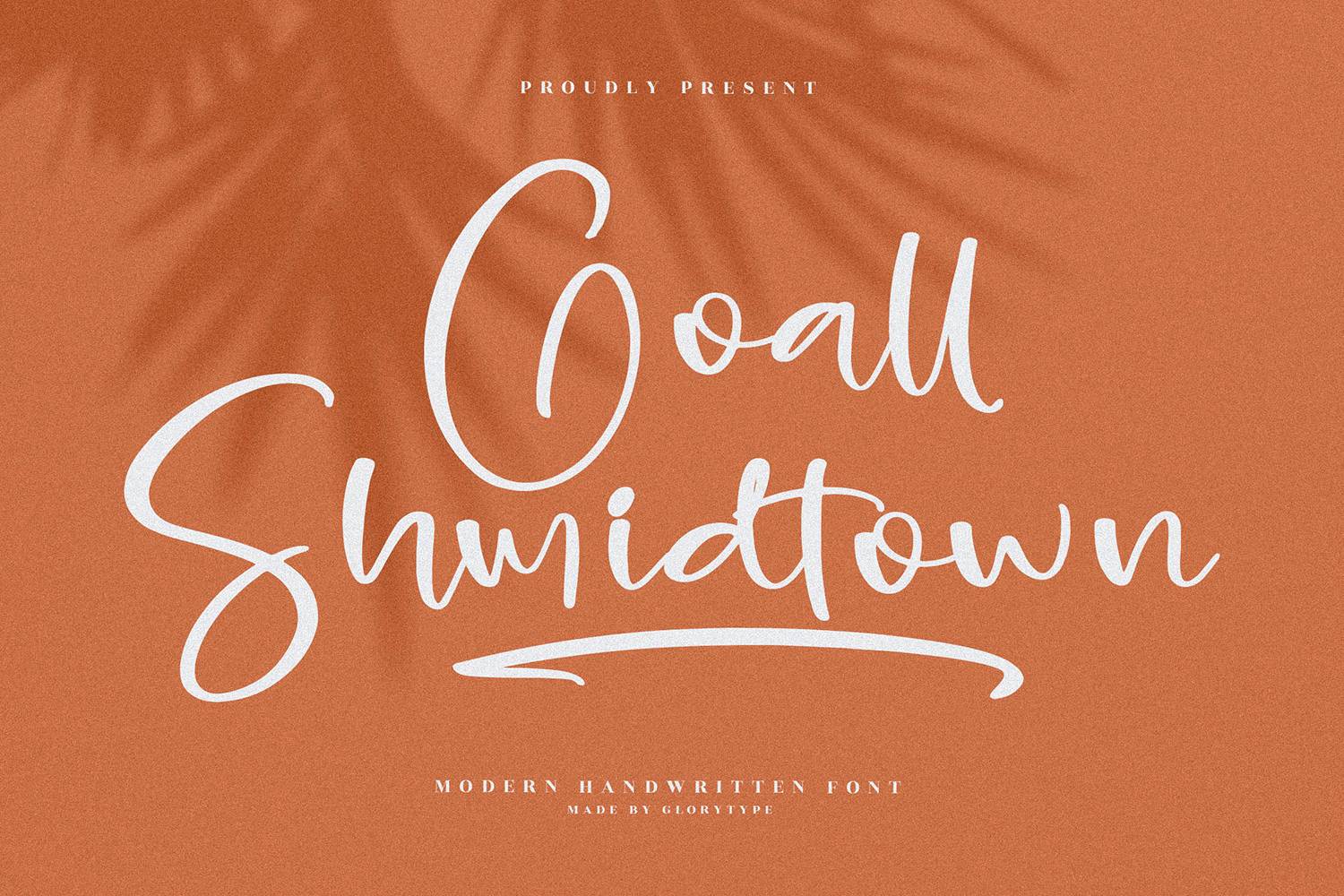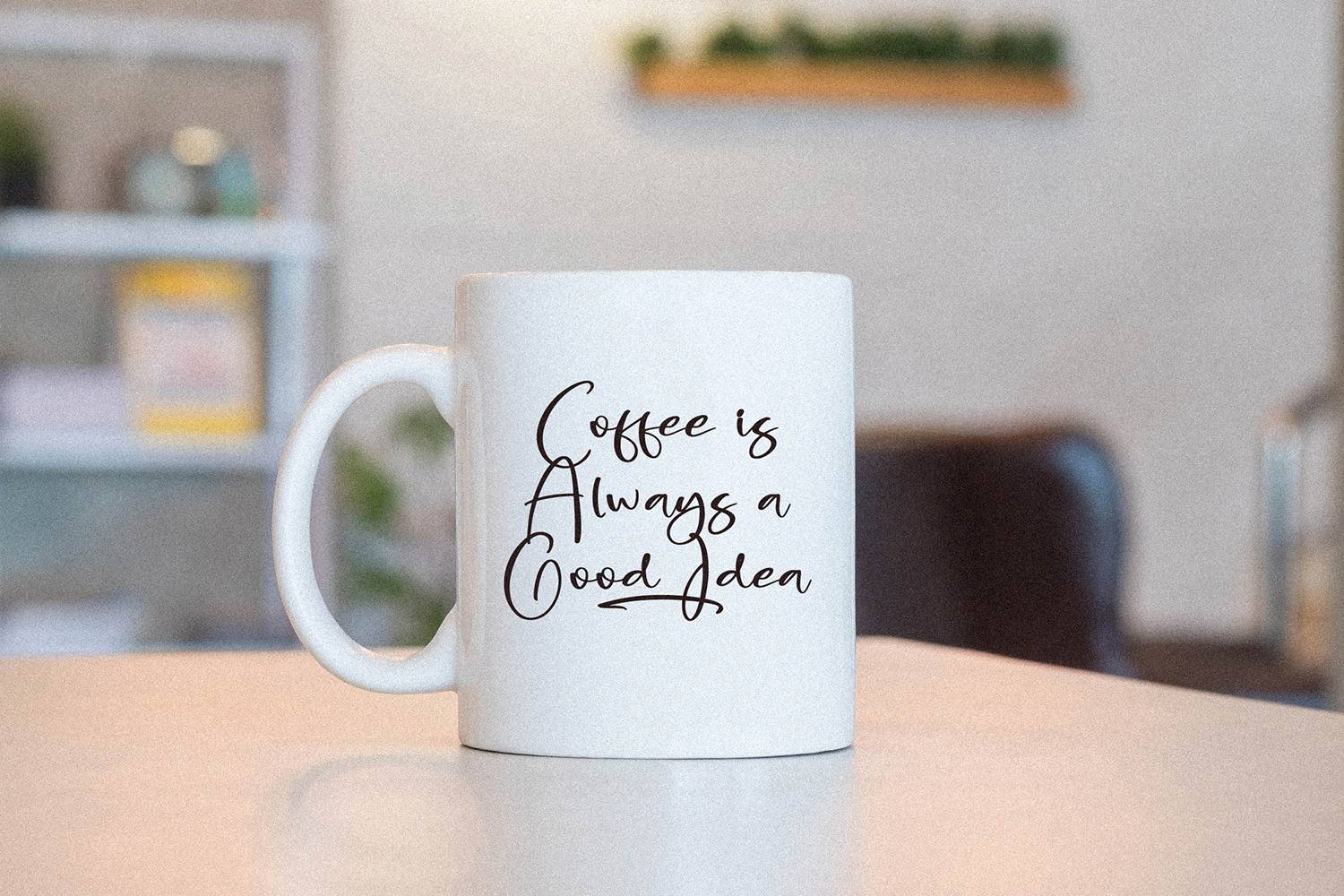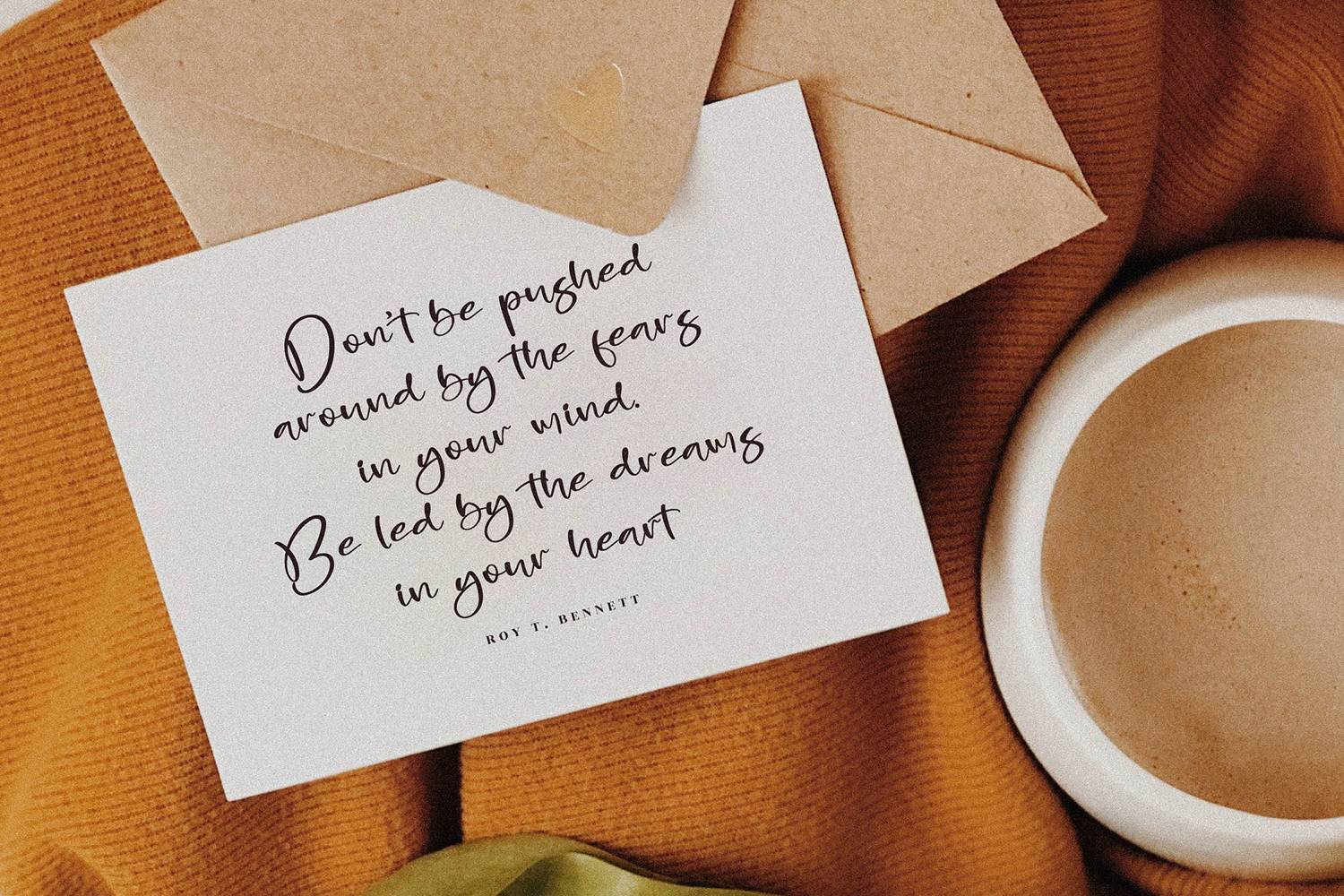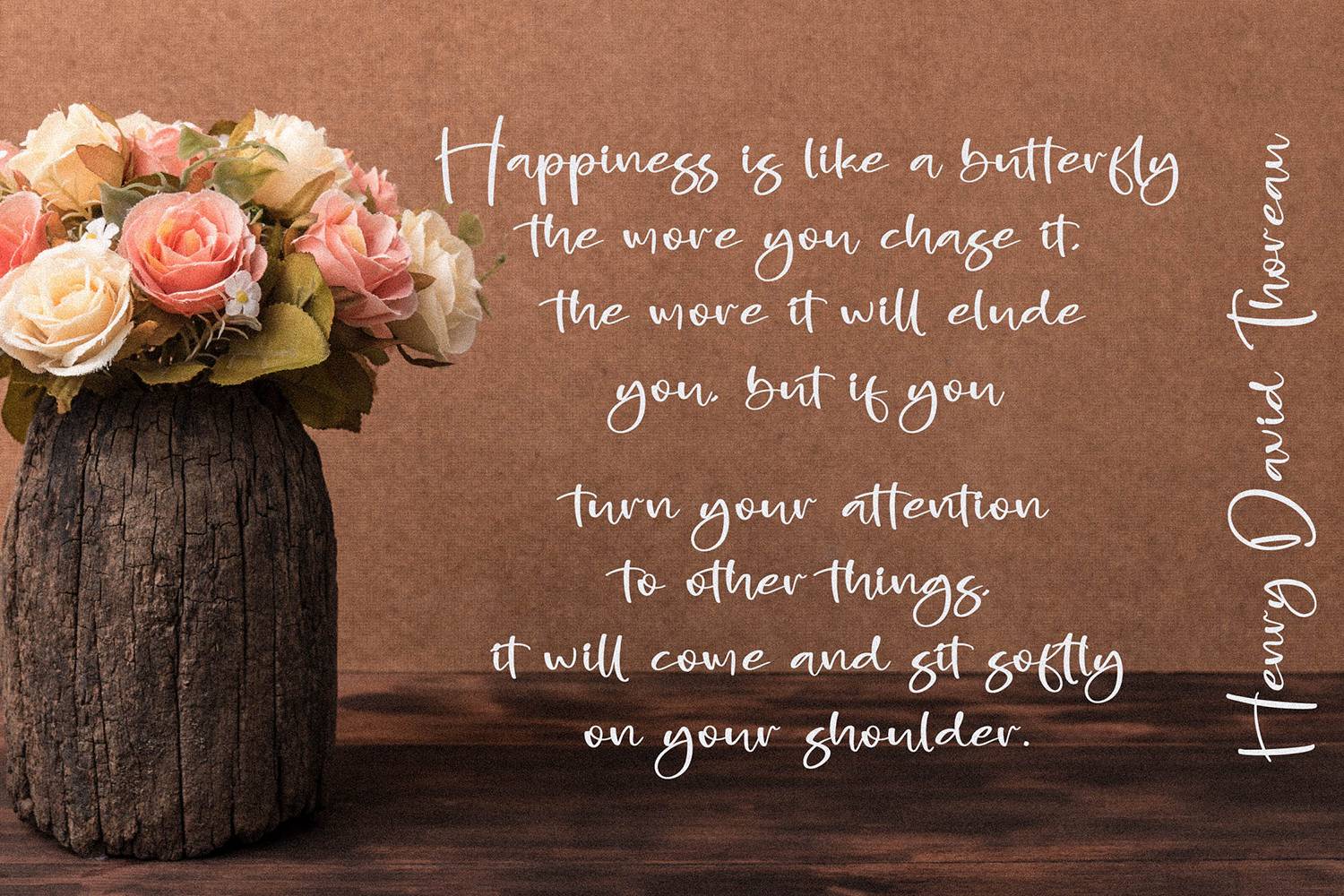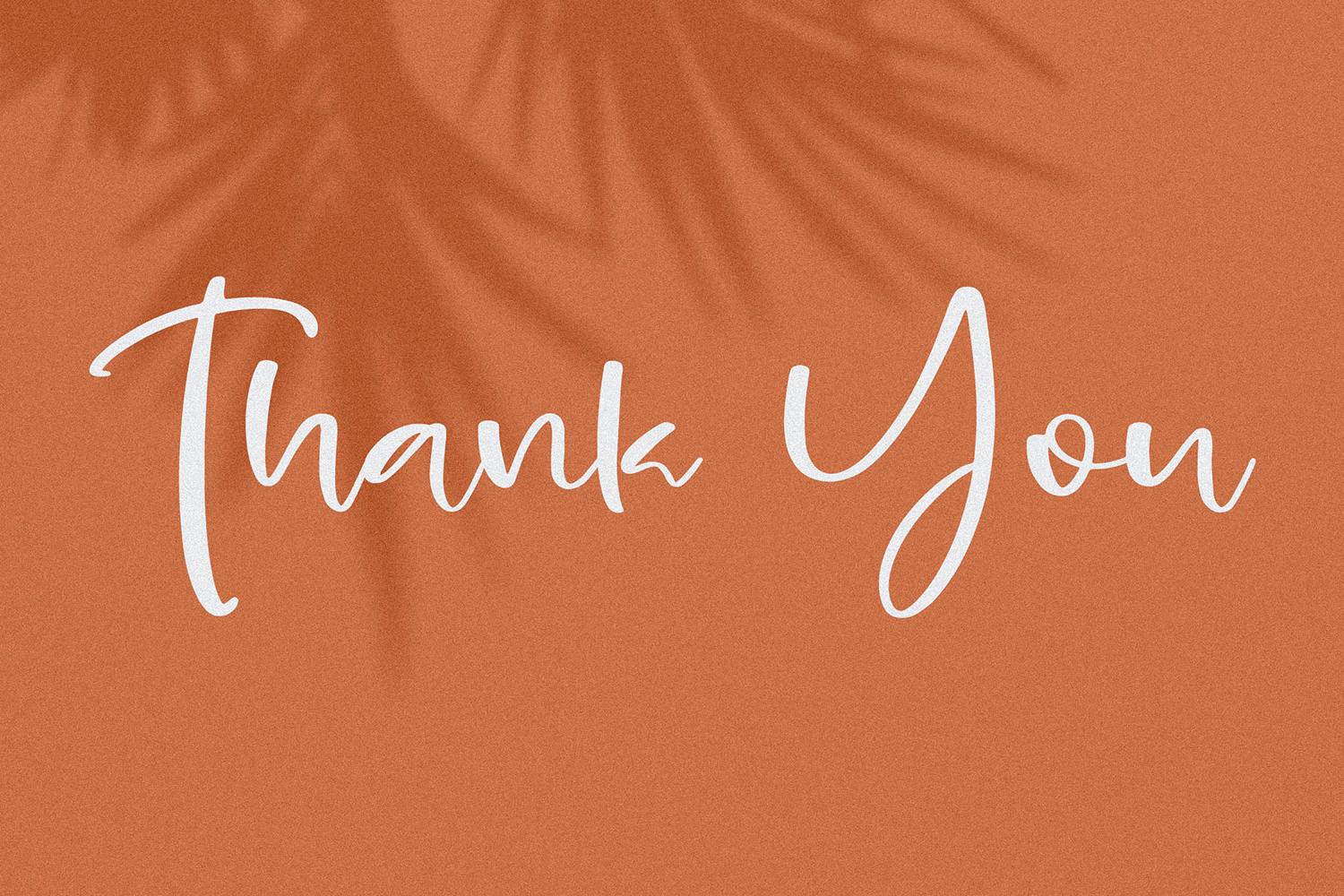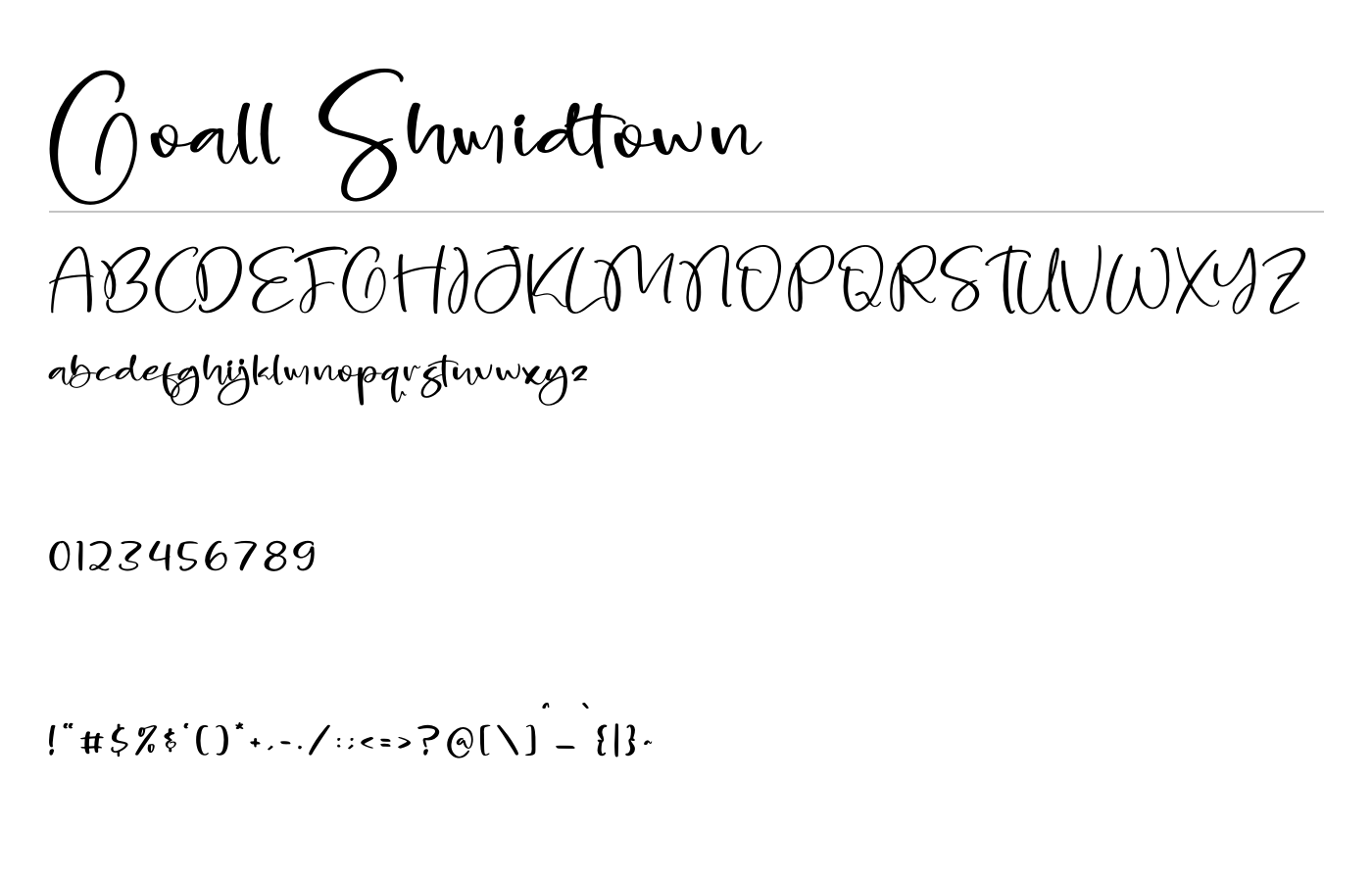
Goall Shmidtown is a playful and elegant handwritten script font that combines casual charm with refined strokes. Its irregular yet graceful letterforms make it perfect for creative branding, invitations, and lifestyle designs, adding a personal and approachable feel to any project. This font shines in contexts where a friendly, artistic touch is desired, especially for headlines and logos.
Goall Shmidtown Font
About Goall Shmidtown Font